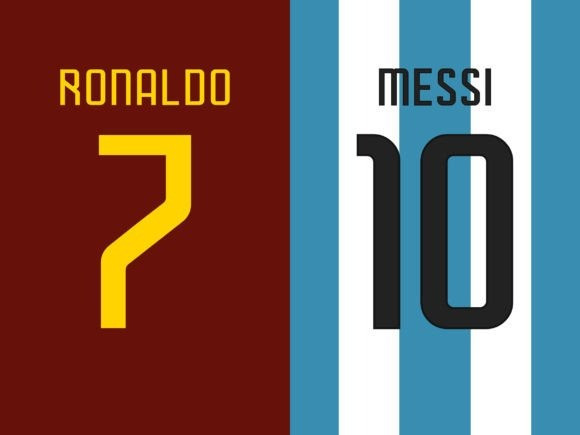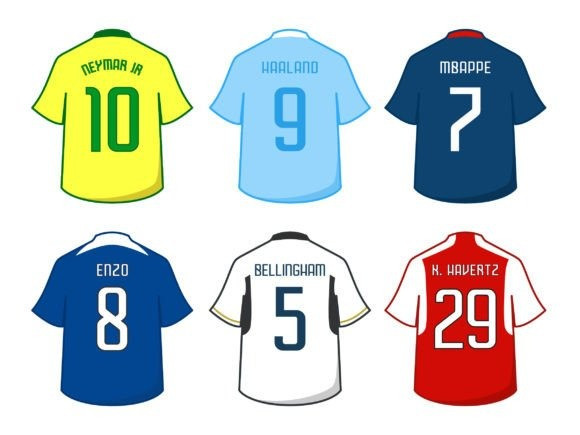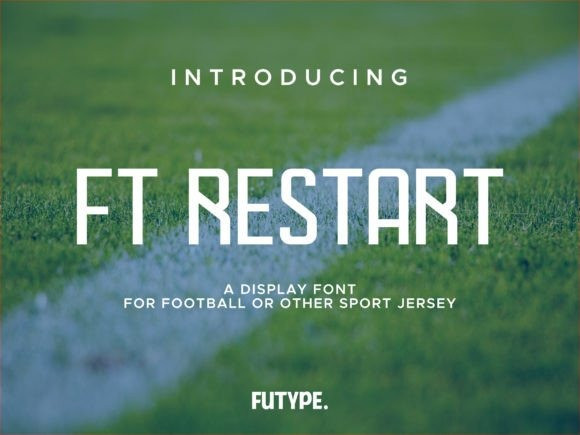
FT Restart Font
FT Restart Font is a display font, made for football or other sport kits or jerseys. The shape of every letter and number make the name and number looks unique, unforgettable and most importantly, easy to read.